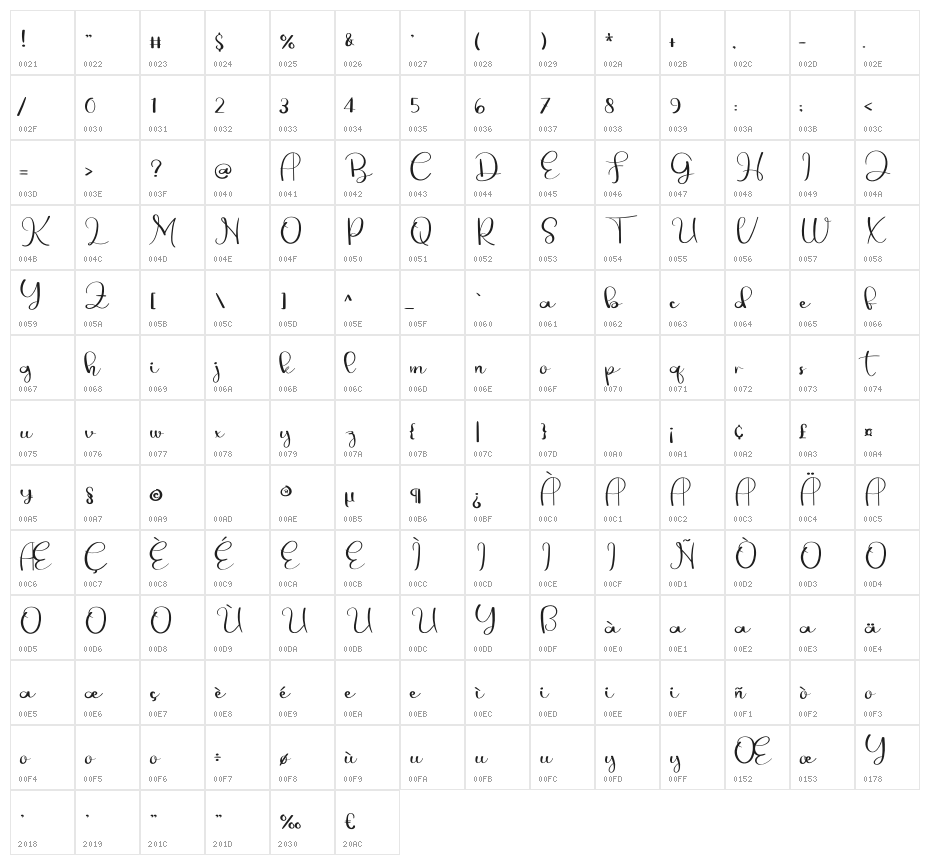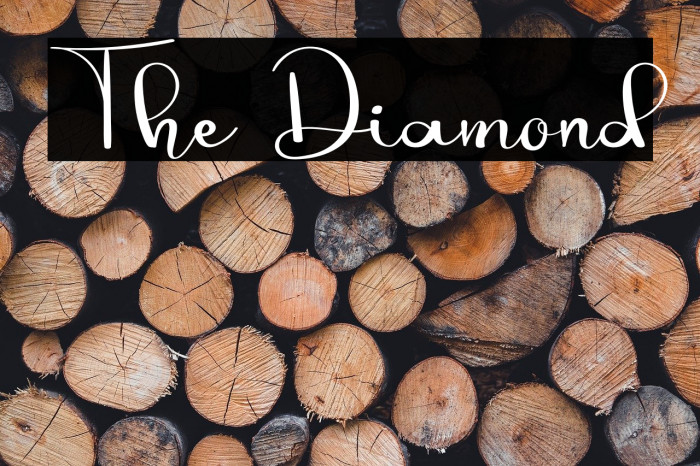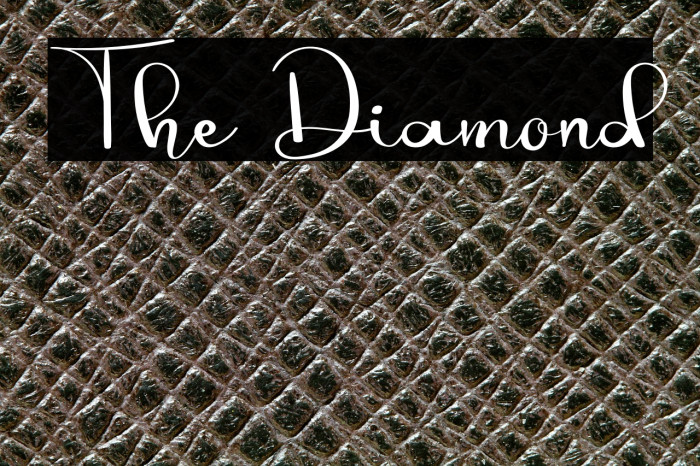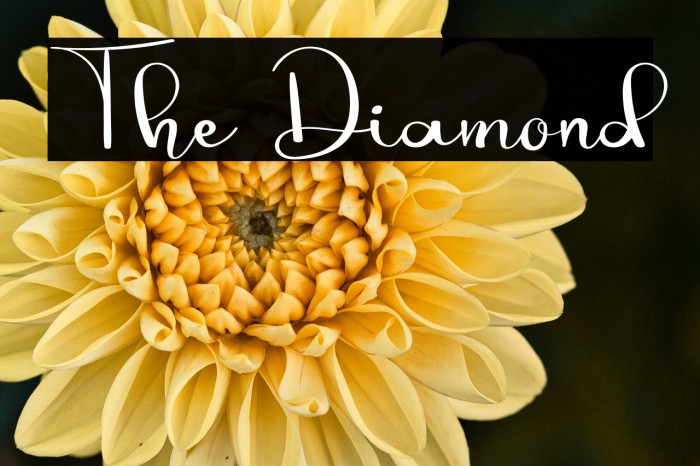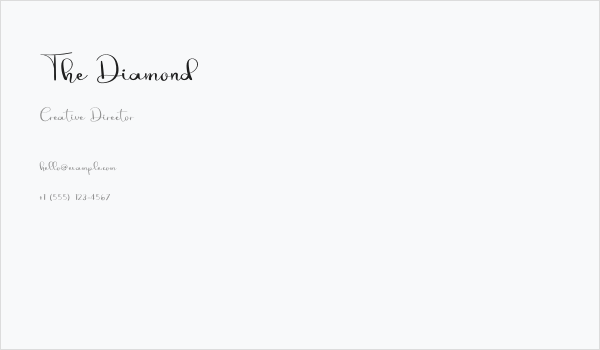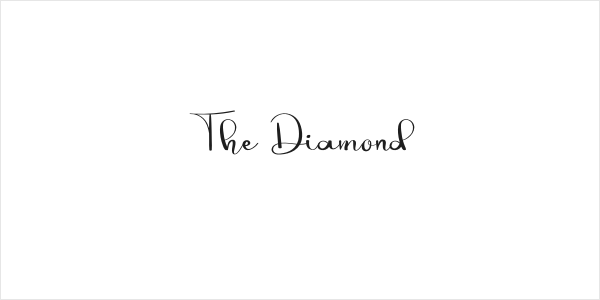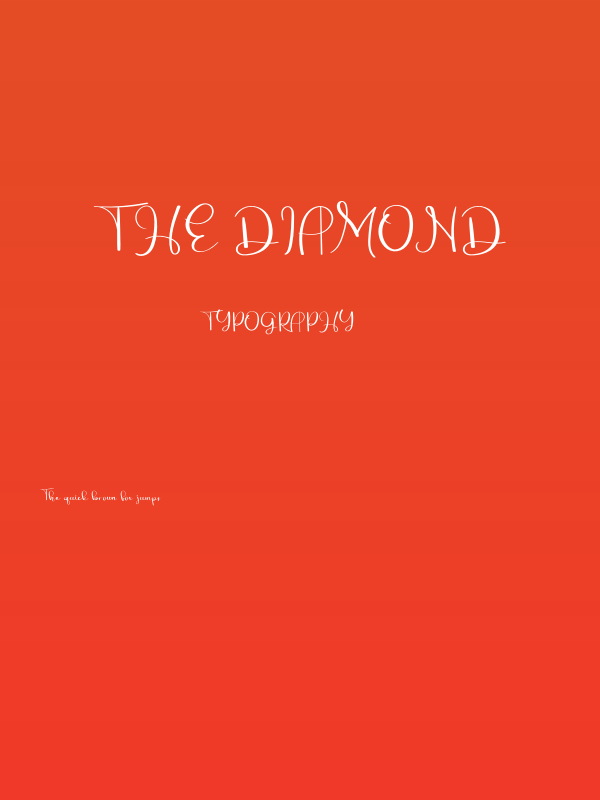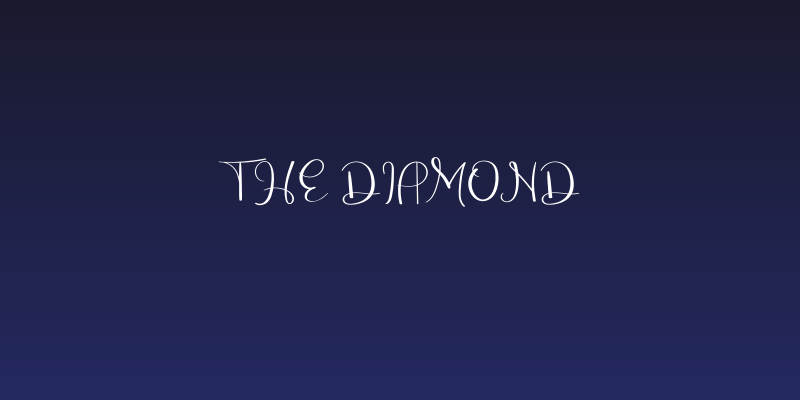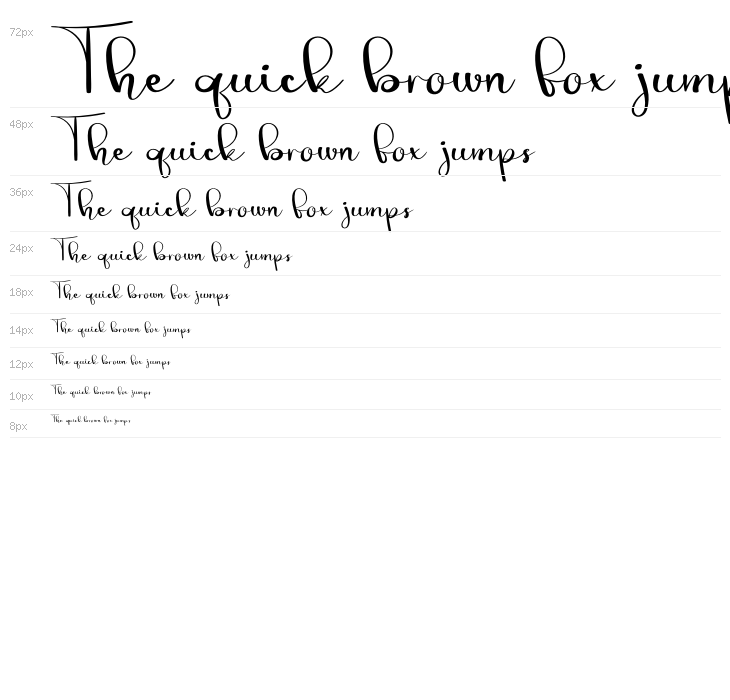
The Diamond Font
The Diamond Description
This font features a whimsical and elegant script style with a flowing, cursive design. The uppercase letters are characterized by their tall, slender forms with graceful loops and swirls, giving them a sophisticated yet playful appearance. The lowercase letters maintain a consistent fluidity, with some characters extending below the baseline, adding to the font's charm. The numerals are clear and easy to read, maintaining the same elegant style. Special characters are designed to complement the overall aesthetic, ensuring consistency across all glyphs. This font is perfect for projects that require a touch of elegance and creativity.
Use CaseLogos, Headlines, Invitations
Proposed ProjectsIdeal for wedding invitations, greeting cards, branding, and elegant packaging designs.